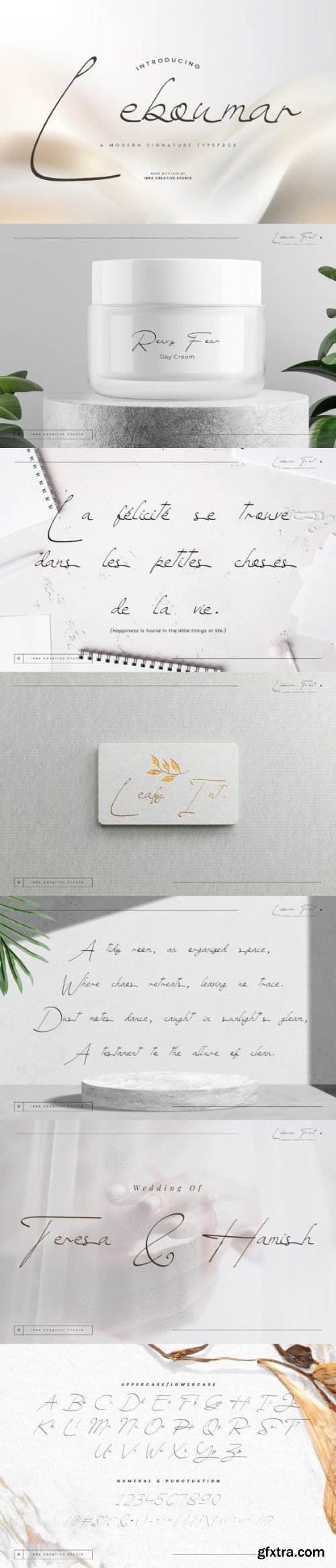
勒博马字体
Leboumar, a modern signature typeface, effortlessly merges contemporary aesthetics with the timeless elegance of handwritten script. With fluid strokes and a dynamic rhythm, Leboumar captures the essence of individuality and sophistication. Its sleek, yet expressive letterforms give a sense of personal touch, making it ideal for adding a touch of refinement to a variety of design projects. The smooth and deliberate curves of Leboumar create a harmonious balance between legibility and artistic flair, allowing it to adapt seamlessly to both digital and print medium.